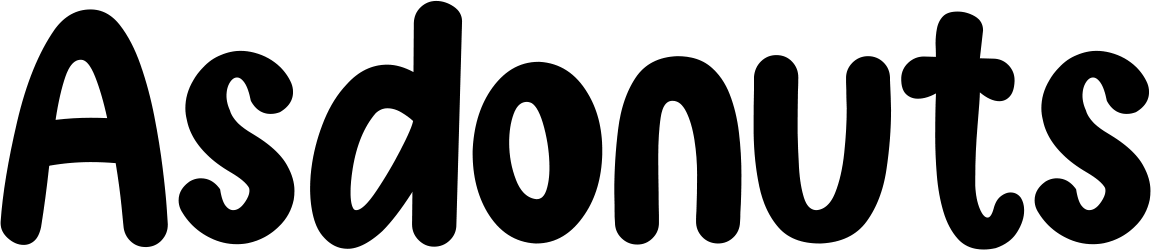
Asdonuts Font
Asdonuts font is the best example for many food packaging designs, snacks, and sweets such as donuts. Also, if you work in a store that is just serving donuts, you can put this fat-rounded font in the input title of your store in a very bold way.
This fancy, bubble, and balloon font is recommended for many children’s birthdays to ensure that your audience will be attracted to this fancy design and that your sales will increase.